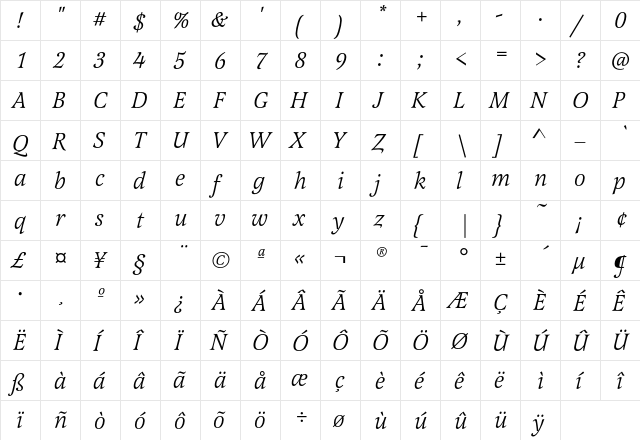
LatienneEF-Italic Regular Font Preview
LatienneEF-Italic Regular
LatienneEF-Italic Regular Font Details
Design Context for LatienneEF-Italic Typeface
LatienneEF-Italic is a composed and adaptable typeface that performs quietly and consistently across a wide range of design contexts. Its italic angle brings a sense of urgency and motion to the letterforms.